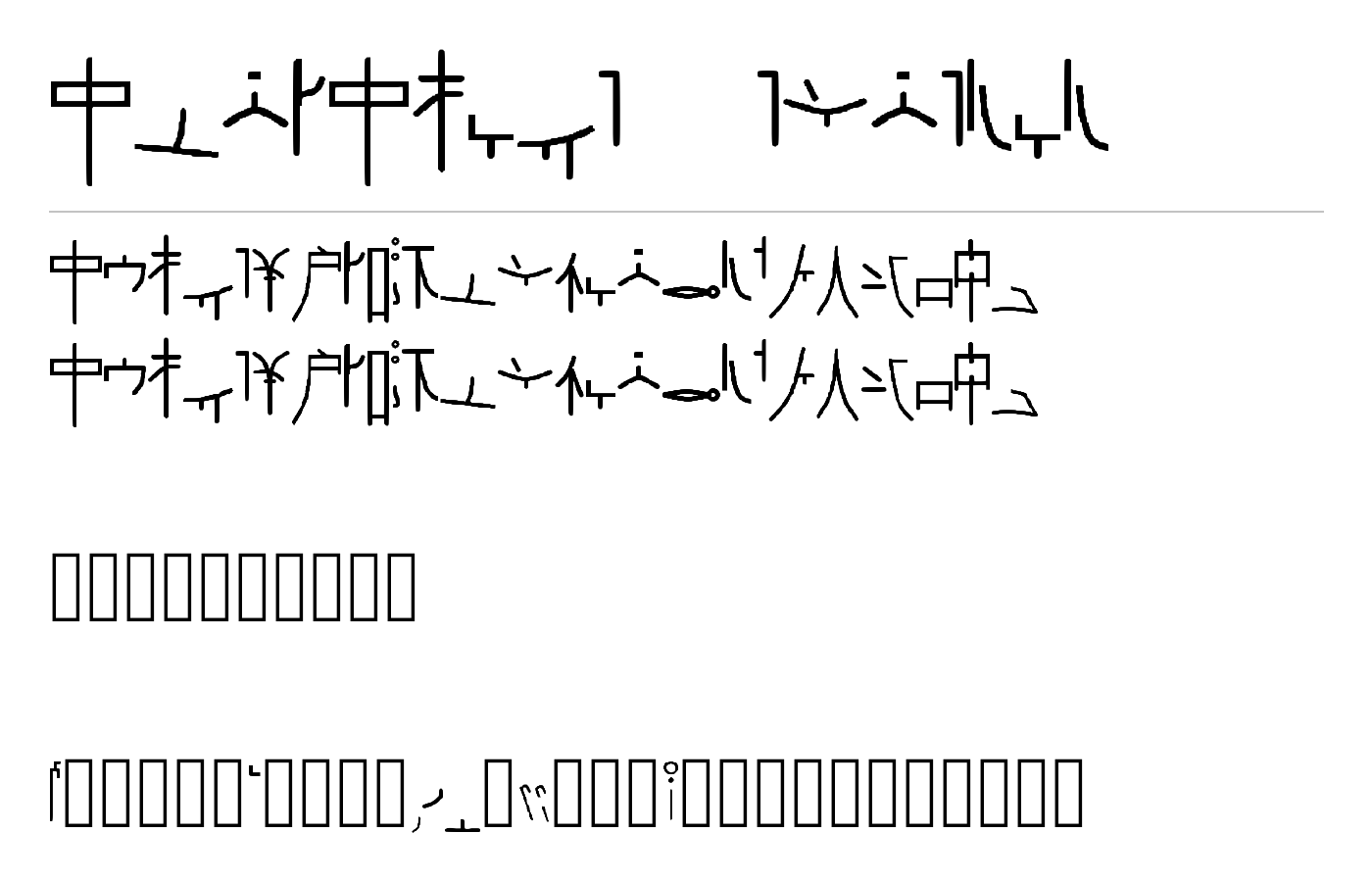
Alphacode Emperor is a unique decorative font featuring a highly stylized, angular design reminiscent of ancient scripts or coded symbols. Its geometric, thin strokes and distinct character shapes create an intriguing, mysterious vibe, making it ideal for sci-fi, fantasy, or tech-themed projects that require a futuristic or enigmatic feel. This font works best for logos, posters, and headlines where its intricate details can stand out and capture attention.
Alphacode Emperor Font
About Alphacode Emperor Font